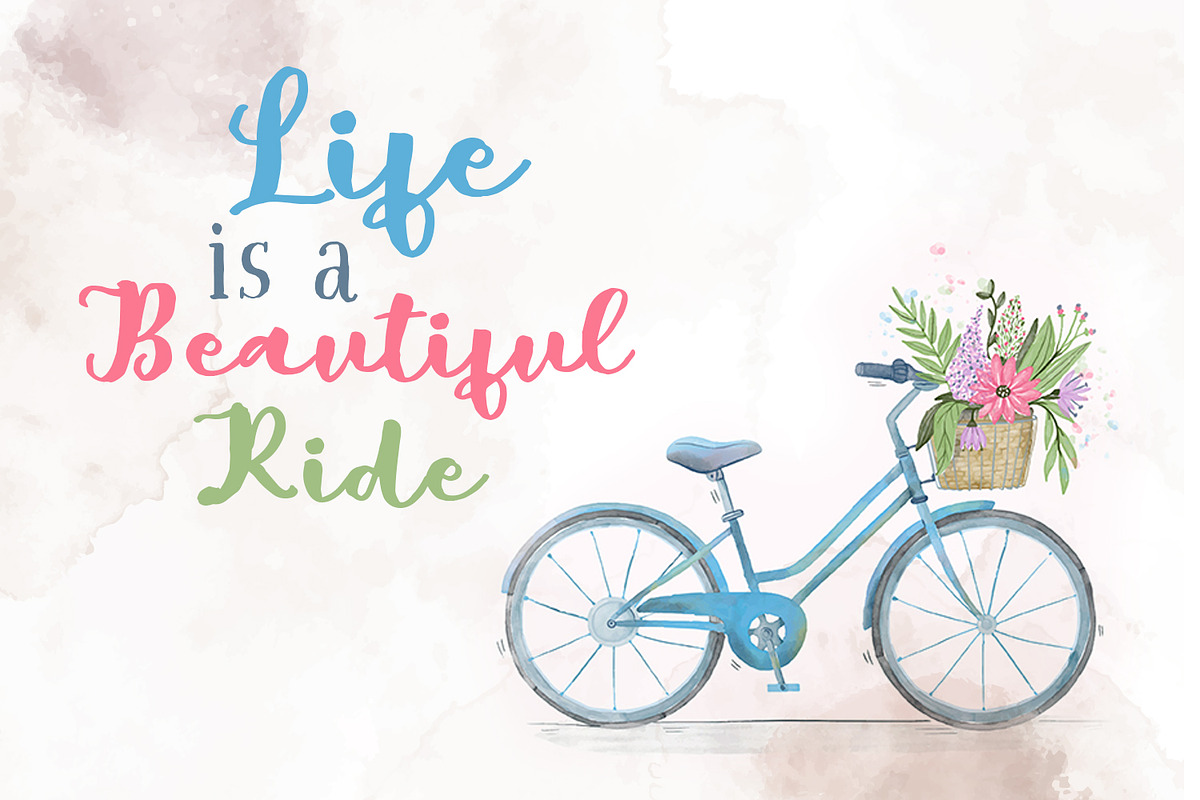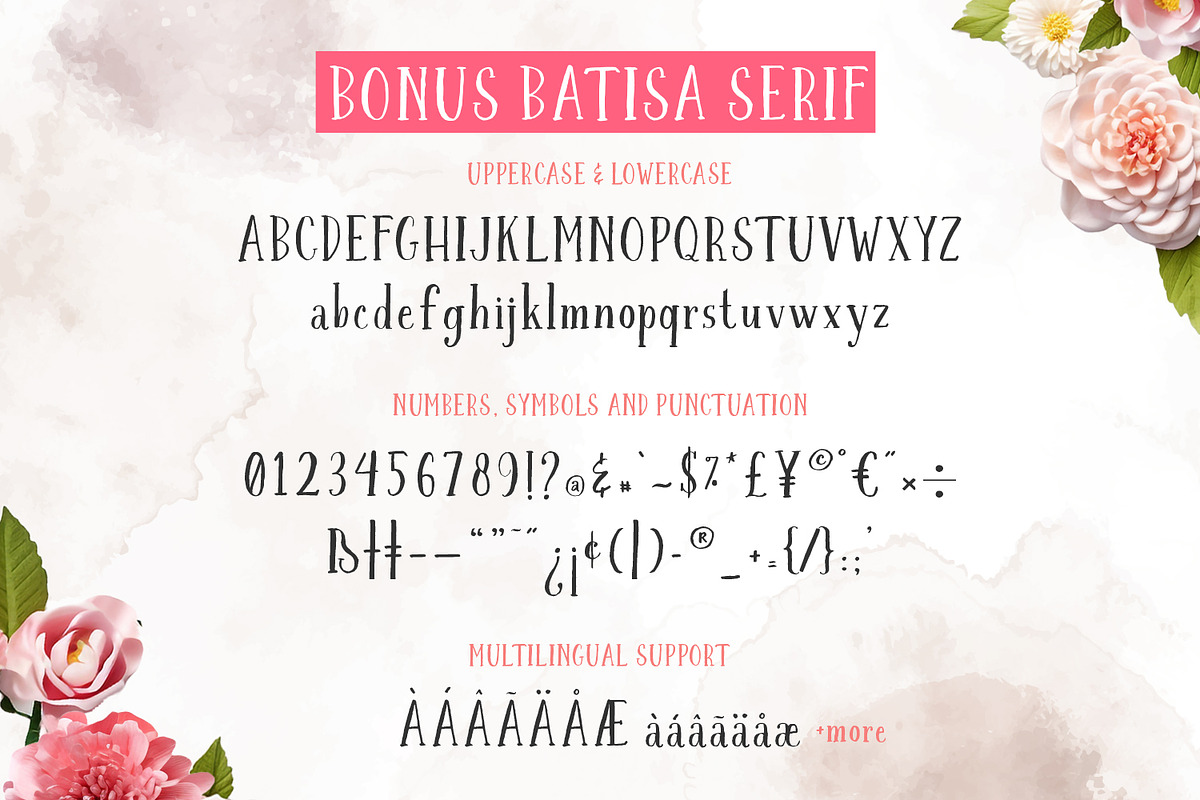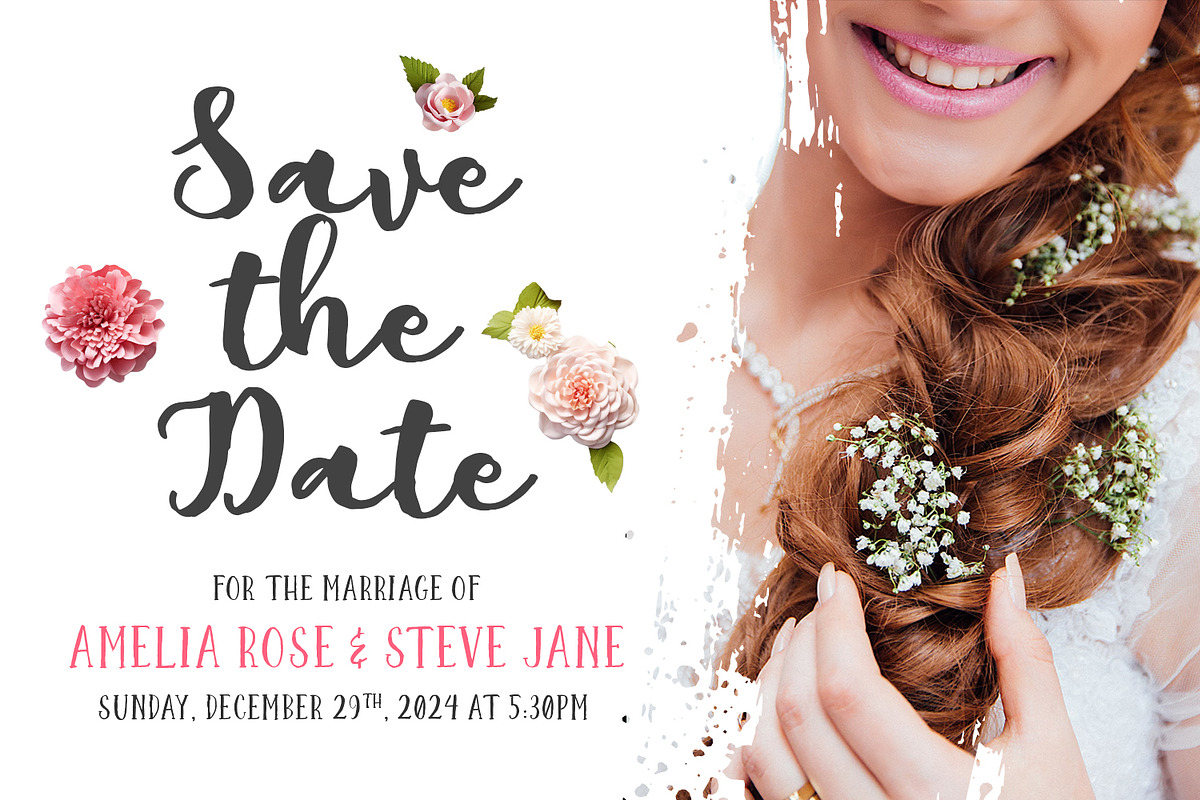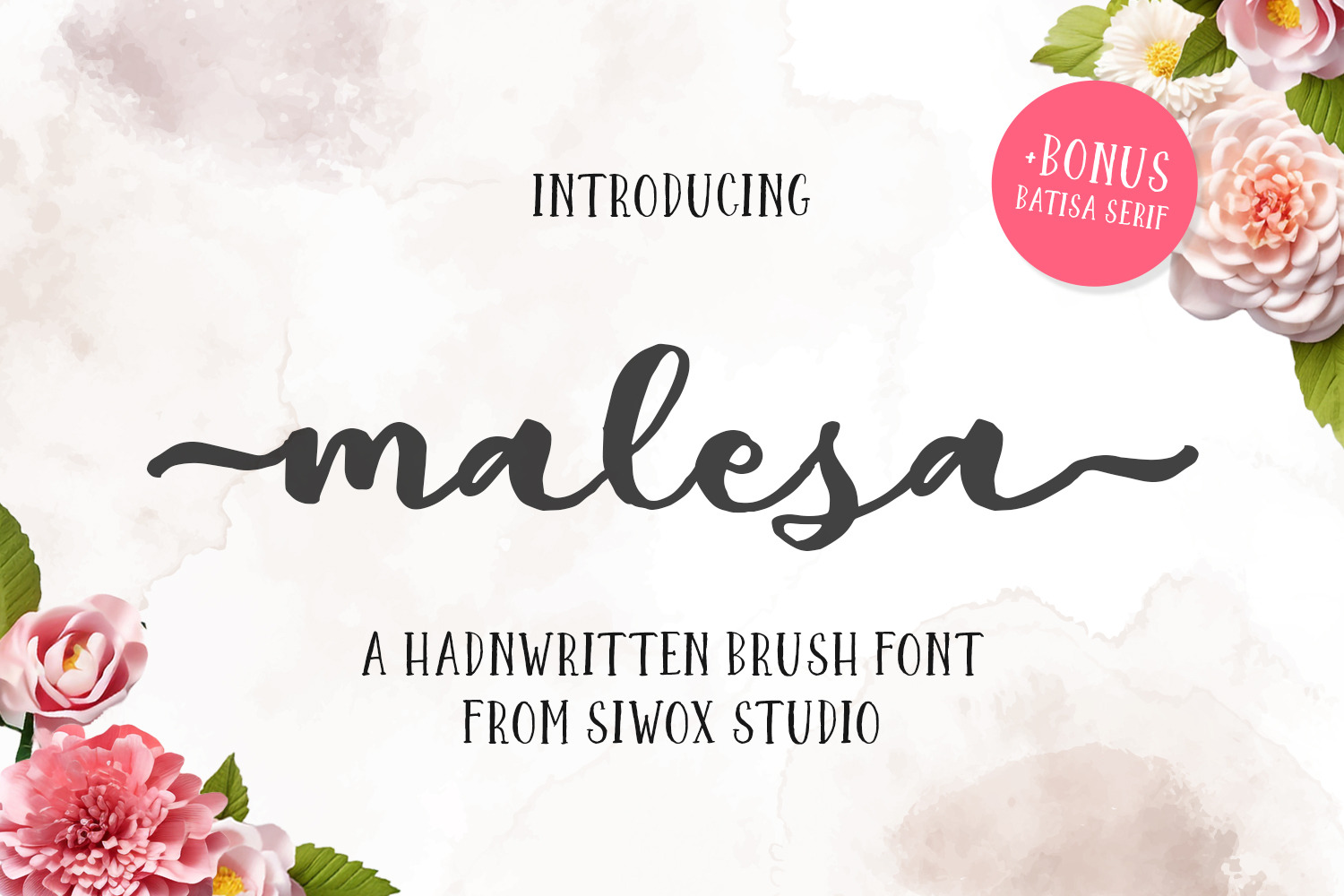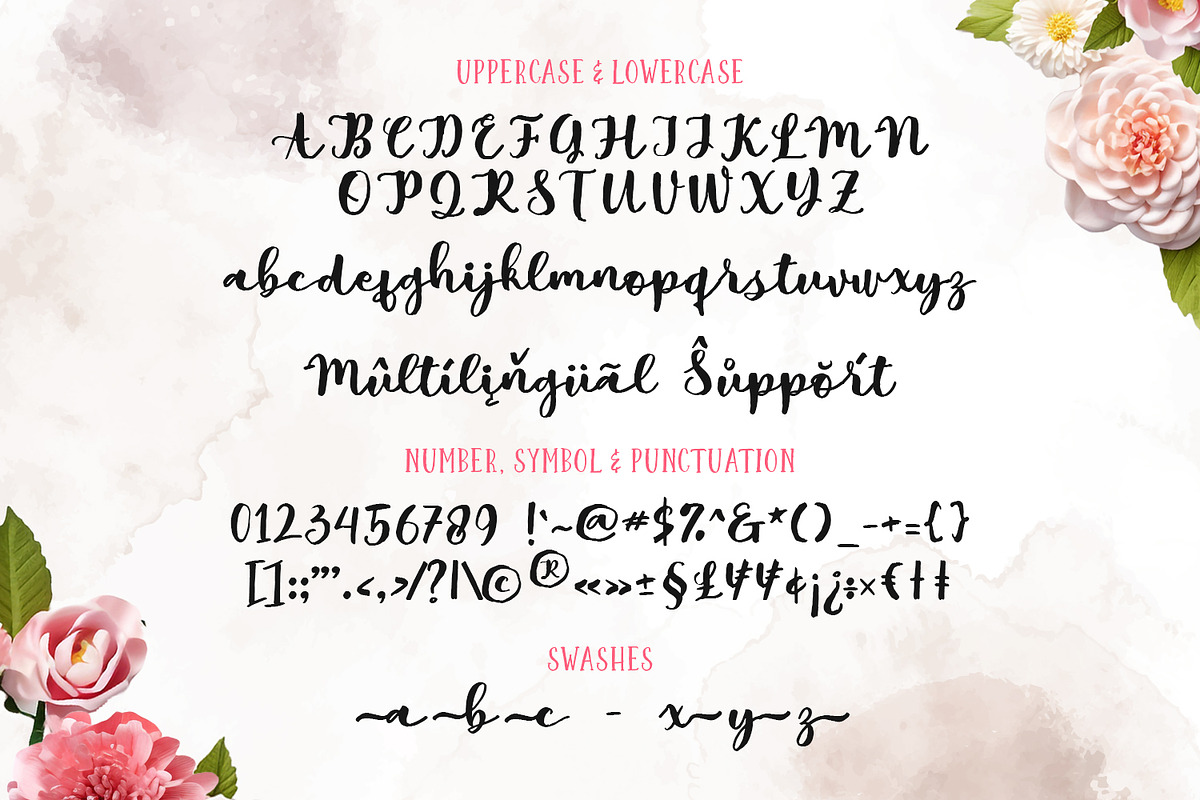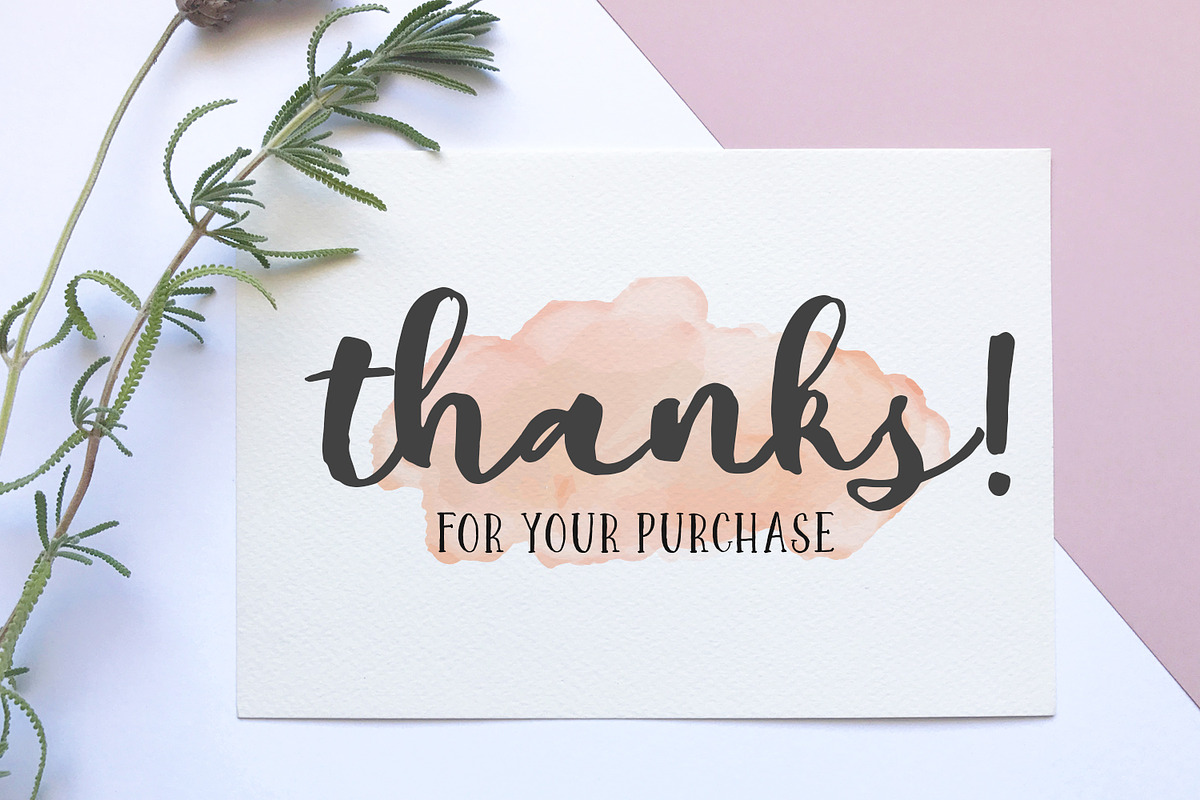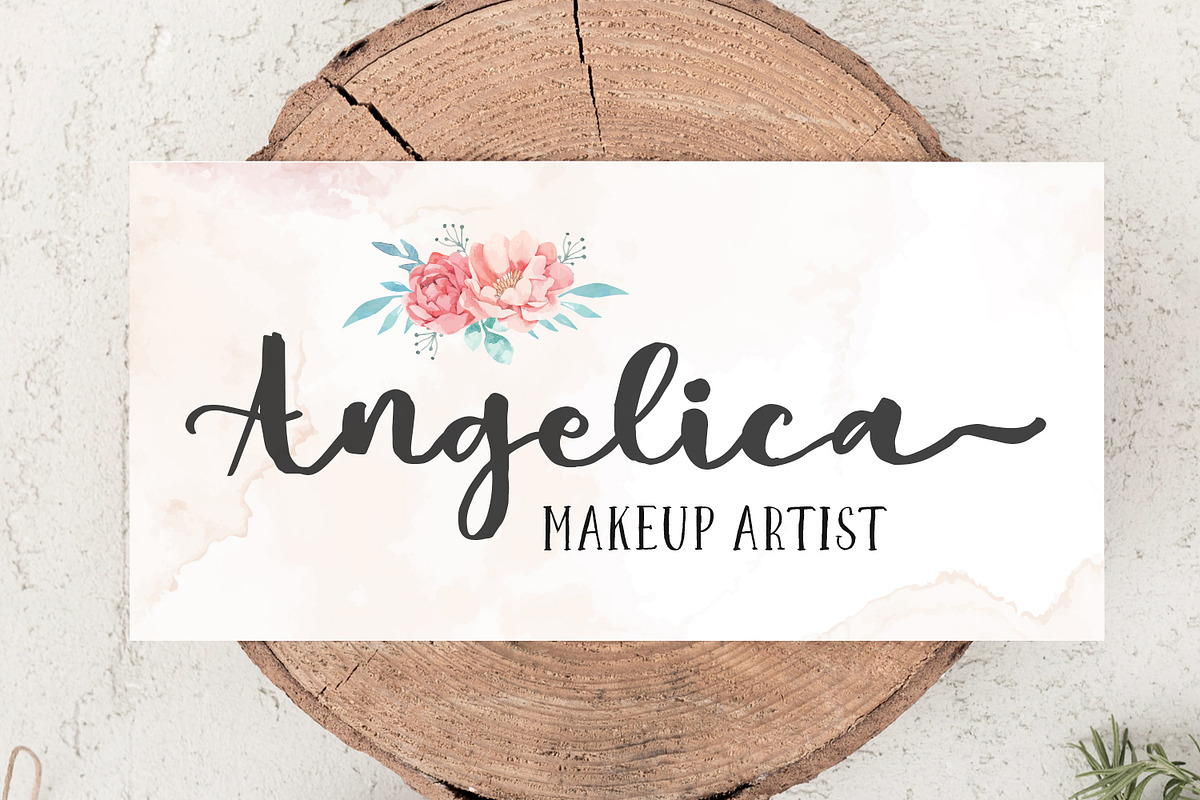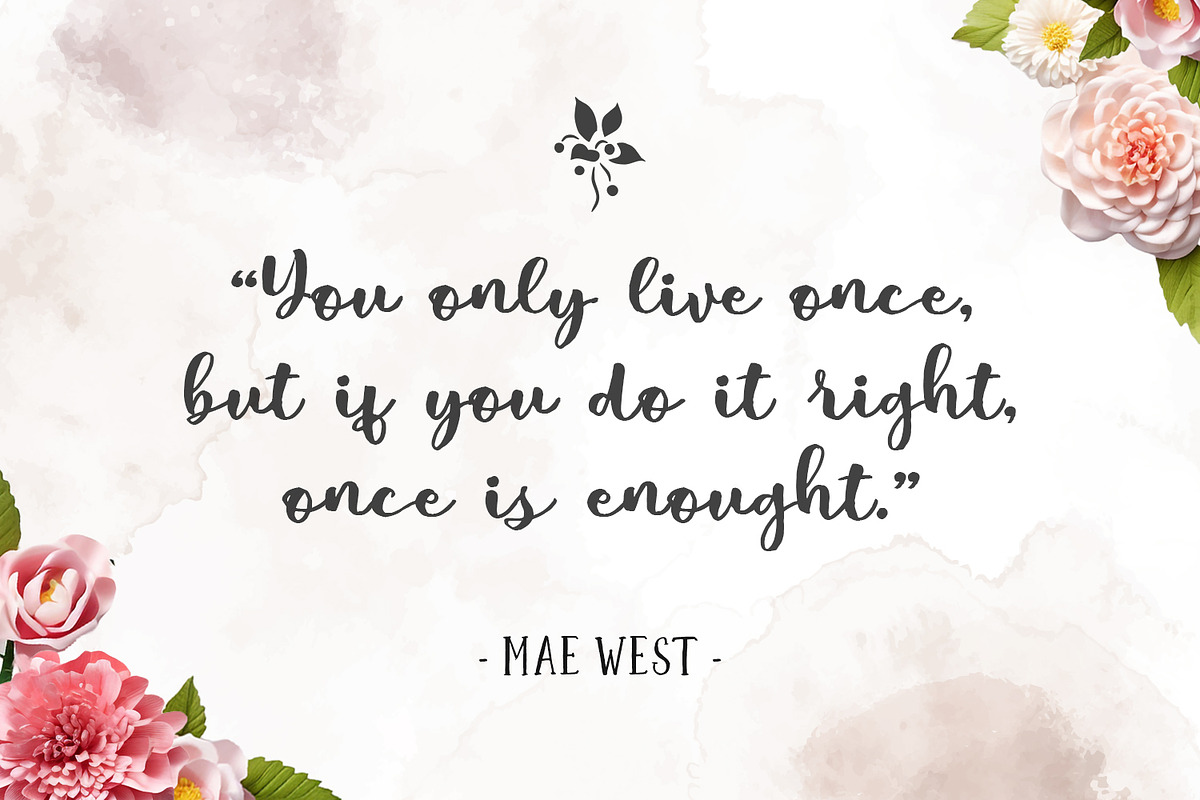
Malesa Brush font
Malesa Brush is a sleek and elegant handwritten font. Its unique and balanced letters make this font a masterpiece. Perfect for greeting cards, quotes, social media marketing, wedding, logo, invitations, stationery, and advertising campaigns.
Get a bonus BATISA SERIF font complete with Standard Characters, this font is perfect to combine with Malesa Brush font to create unique and eye-catching designs.